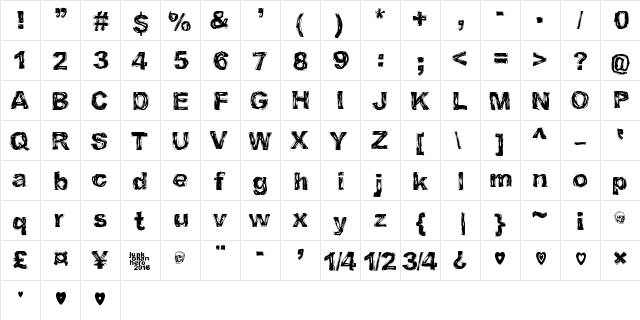
I believe in life before death Regular
Design Context for I believe in life before death Typeface
I believe in life before death leans into the macabre with letterforms designed to disturb and intrigue in equal measure.
Perfect for anything that needs to unsettle — game titles, horror branding, and macabre invitations.
Font Pairing: Pair with a clean neutral sans-serif for body copy to let I believe in life before death's character lead without overwhelming the composition.
Pro Tip: Use I believe in life before death at larger display sizes for maximum impact. Consider generous tracking to let the disturbing character of each letterform breathe.